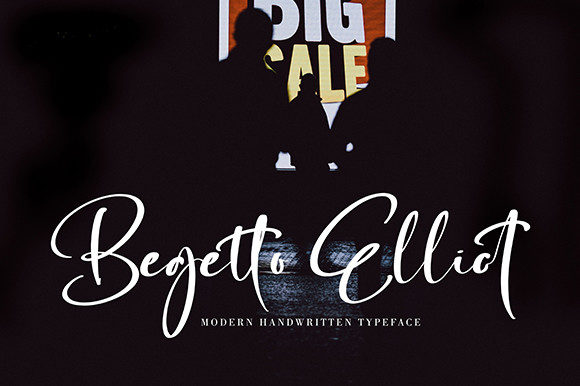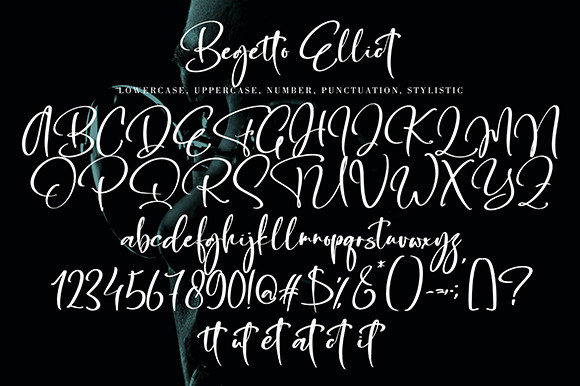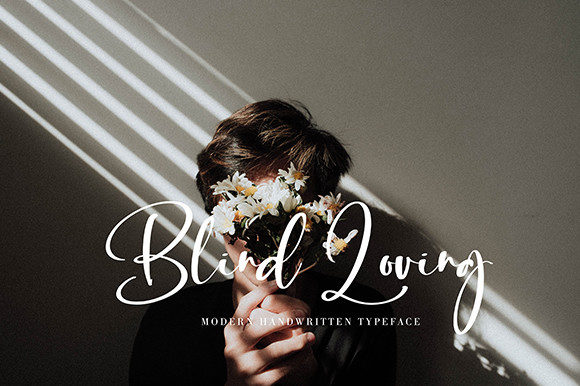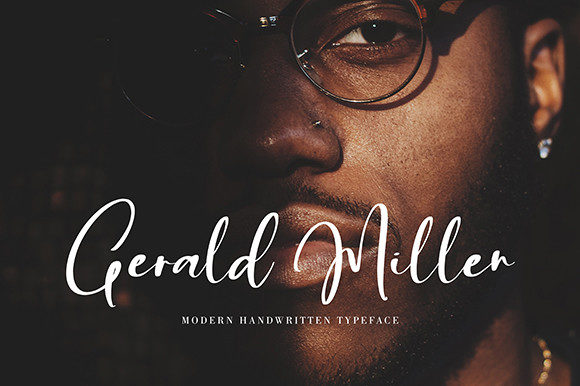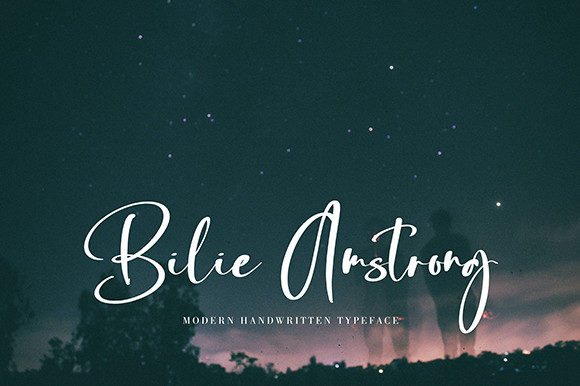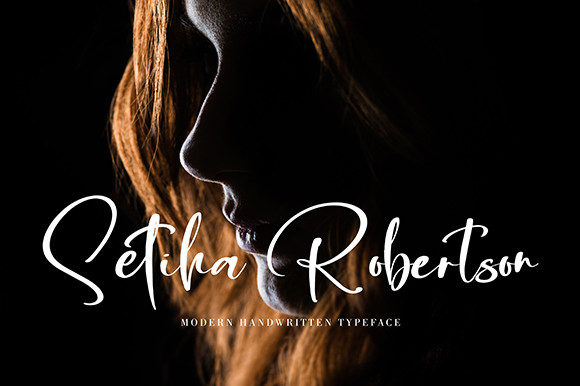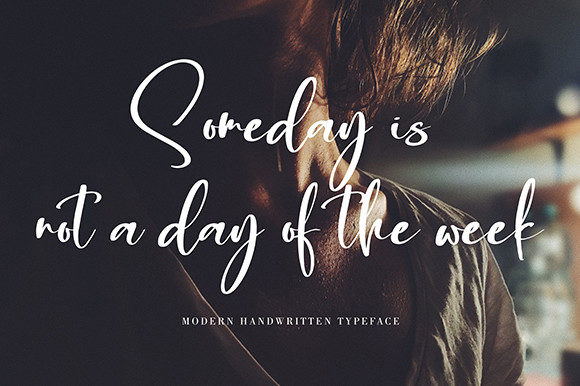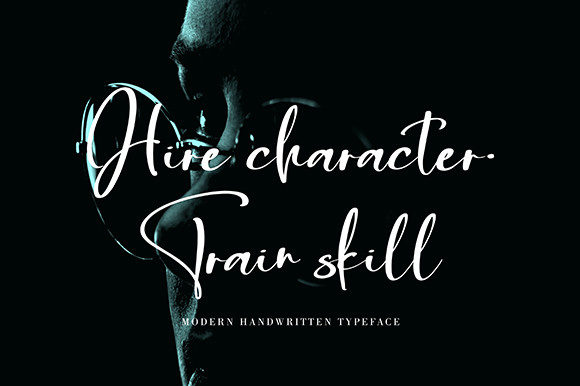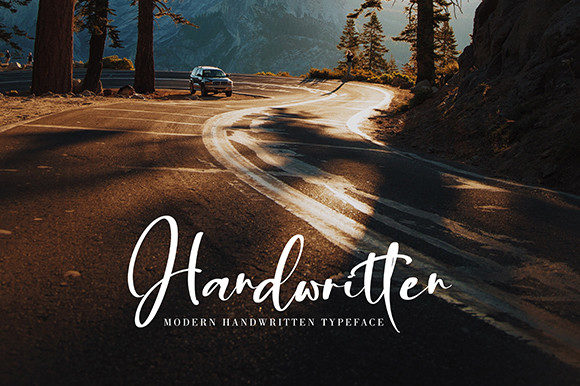
Begetto Elliot Font
About Begetto Elliot Font
Begetto Elliot is a flowing handwritten font, described by an elegant touch, perfect for your favorite projects. Fall in love with its incredibly distinct and timeless style and use it to create spectacular designs!